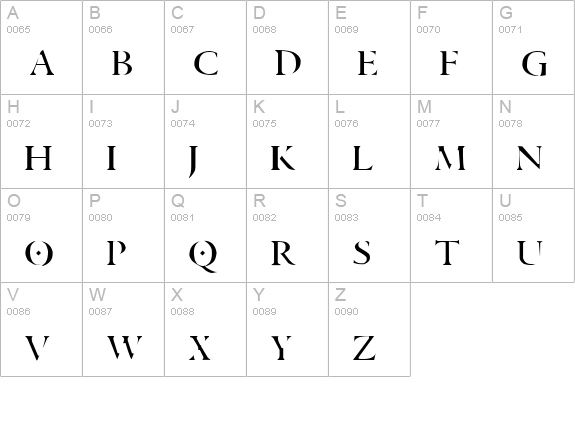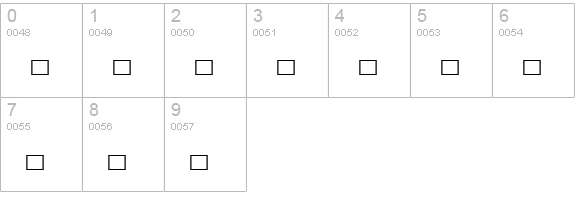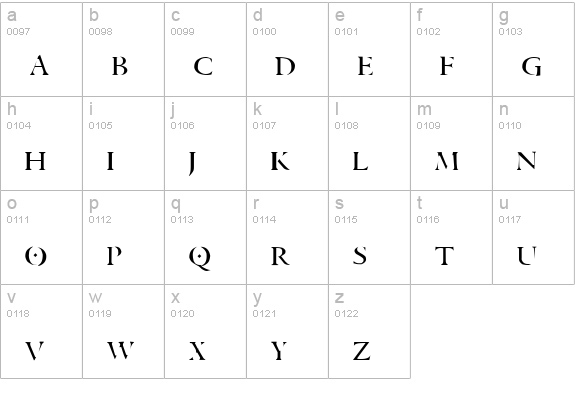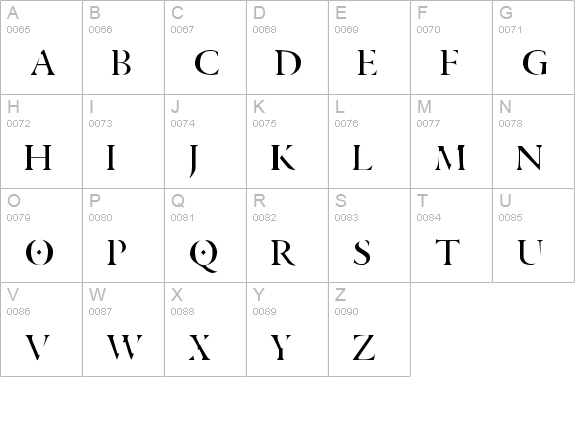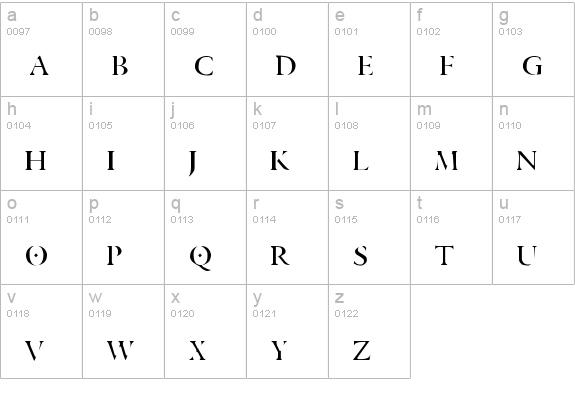
Aranea Font Details
Aranea font is a beautifully crafted typeface that exudes elegance and sophistication. Its sleek and modern design makes it perfect for a wide range of design projects, from branding to editorial layouts. With its clean lines and stylish curves, Aranea font adds a touch of class to any text or headline. The best part? Aranea font is completely free to download at FontsMarket.com! This means you can start using this stunning font in your projects right away, without having to worry about any costs. Whether you're a professional designer or just someone looking to spruce up their personal projects, Aranea font is the perfect choice for adding a touch of style and sophistication. Download it now and elevate your designs to the next level!